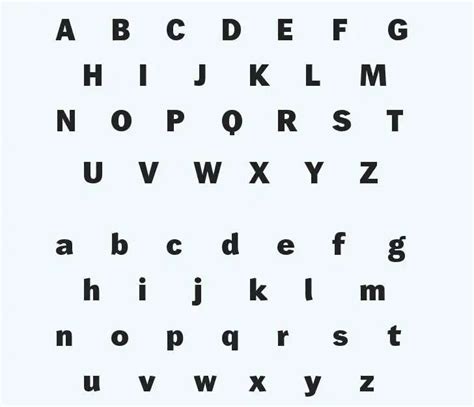
Unleash Your Inner Designer: White Fox Logo Font Generator Guide
Hey everyone! Ever wondered how to create a killer logo, especially when you’re on a budget or just starting out? Well, you’re in luck! Today, we’re diving deep into the world of the White Fox Logo Font Generator . This awesome tool helps you design fantastic logos, and it’s super user-friendly. Whether you’re a seasoned designer or a complete newbie, the White Fox generator can be your best friend. In this comprehensive guide, we’ll explore everything you need to know: what makes this generator special, how to use it effectively, some cool design tips, and even some alternative options. So, grab your coffee, get comfy, and let’s get started on your logo creation journey!
What Makes the White Fox Logo Font Generator Stand Out?
So, what’s the big deal about the White Fox Logo Font Generator ? Why should you choose it over the thousands of other logo design tools out there, right? Well, it boils down to a few key things that make it a winner. First off, it’s known for its simplicity. Seriously, the interface is incredibly intuitive. You don’t need to be a design guru to navigate it. Secondly, it offers a great selection of fonts. Fonts are the backbone of any logo, and the generator provides a range of styles that can match various aesthetics, from sleek and modern to playful and vintage. The White Fox Logo Font Generator often excels in providing a curated selection that hits the sweet spot for many users. The generator often includes options for customization. You can tweak the fonts, colors, and layouts to get the exact look you envision. This level of flexibility is crucial for making a logo truly unique. And let’s not forget the cost. Many generators offer free options or affordable premium plans, making professional-looking logos accessible to everyone. The White Fox version often aligns with this budget-friendly approach. Ultimately, the White Fox Logo Font Generator aims to empower you to create a professional logo without breaking the bank or needing extensive design experience. It’s the perfect tool for startups, small businesses, and anyone who wants to create a compelling brand identity.
The Power of Typography in Logo Design
Typography is a huge deal. It’s way more than just picking a font; it’s about choosing the right words to communicate your brand’s personality and values. The font you choose can instantly tell your audience what you’re all about. A sleek, minimalist font might say ‘modern’ and ‘sophisticated,’ while a bold, playful font could scream ‘fun’ and ‘approachable.’ And that’s exactly why the White Fox Logo Font Generator is useful: It provides a curated library, enabling you to explore fonts that fit your needs. The generator understands this, which is why it often features a variety of font styles to suit different brand identities. Choosing the right font is like picking the perfect outfit; it needs to fit the occasion and reflect who you are. The careful selection of fonts can convey your brand’s essence. Think about it: a logo with the wrong font can send the wrong message. Imagine a law firm using a comic sans font, it simply doesn’t convey trust or professionalism, right? Typography also affects readability. You want your logo to be clear and easy to understand at any size. The White Fox generator lets you adjust the font size, spacing, and other design elements to ensure your logo looks great on business cards, websites, and everything else. So, take your time, play with different fonts, and see how they change the overall feel of your logo.
Customization Options and Features
One of the best parts about using a White Fox Logo Font Generator is the ability to customize your logo. The best generators offer a bunch of options so you can fine-tune every detail. You’ll usually have the power to change colors. Color psychology plays a massive role in branding. Different colors evoke different emotions. Red might mean excitement, green could represent nature, and blue often symbolizes trust. A good generator will let you pick and choose colors, or let you create your own custom color palettes. Plus, you can change the text layout. Play around with the way your brand name and tagline are arranged. Experiment with different arrangements, such as stacked text, horizontal layouts, or circular designs. This is where you can truly make your logo stand out. The layout is just as important as the font itself. The White Fox Logo Font Generator often provides tools for adjusting the spacing between letters and words. Small adjustments here can make a big difference in the overall look and feel. Some generators even offer the option to add icons or graphics. If you want to include an image or symbol, many generators allow you to upload your own or choose from a library of pre-made elements. The goal is to make your logo unique to you and your brand. Don’t be afraid to experiment, try different combinations of fonts, colors, and layouts, and see what works best. Play around with all the features and tools the White Fox Logo Font Generator offers. The beauty of these generators is that you can try things out and change them until you’re happy with the result. Take advantage of all the available options to create a logo that perfectly represents your brand.
How to Use the White Fox Logo Font Generator Effectively
Alright, let’s get down to the nitty-gritty and learn how to use the White Fox Logo Font Generator like a pro. Using a font generator can seem intimidating at first, but trust me, it’s easier than you think. First, head over to the generator’s website. You’ll usually find a user-friendly interface. Next, start by typing in your brand name and any relevant tagline. Most generators will give you a preview of your logo as you make changes. Then, comes the fun part: Choosing your font! The White Fox Logo Font Generator usually has a range of fonts to choose from. Browse the options and pick one that aligns with your brand’s personality. The font you choose should reflect your brand’s overall image. From there, you get to customize your design. Use the options to change the color of your text and background. Experiment with different colors to see what looks best. Many White Fox Logo Font Generators provide a variety of layouts. Try different arrangements to find a design that suits your brand. Finally, review your design, and make any final adjustments. Make sure you’re happy with the logo before saving or downloading it. Some generators offer options to download your logo in different file formats. Choose the format that best suits your needs, such as a PNG for web use or a vector file for printing. With a little bit of time and effort, you can create a professional-looking logo that represents your brand. The key is to play around with the generator’s features, and don’t be afraid to try different things until you find the perfect design. And that is how easy it is to become a pro!
Let’s walk through the process of creating your logo, step by step, using the White Fox Logo Font Generator . First, access the generator. Find the platform and open it up. Next, it’s time to enter your brand name and any tagline. Most generators will display your text in real time. After you’ve entered your brand name, take a look at the font selection. Browse the available options and select a font that reflects the personality and tone of your brand. Now, get ready to personalize your logo. Start by playing with the color of your text. Try out different color combinations. The White Fox Logo Font Generator probably has several layout options. Experiment with different arrangements to see what fits best. Some generators also offer customization options for adding icons or other graphic elements. Don’t worry about getting it perfect on the first try. That’s why it’s called experimenting. Once you have a logo design you like, take a moment to review it. Is everything aligned and arranged the way you want it? Does the color look good? Do the font and layout represent your brand? If everything looks good, go ahead and save and/or download your logo. The White Fox Logo Font Generator likely offers options to download your logo in various formats. With a bit of practice and patience, you’ll be able to create a logo that looks professional and fits your brand. You’ll get the hang of it pretty quickly, so have fun with it.
Tips for Maximizing the Generator’s Potential
To make the most of the White Fox Logo Font Generator , there are a few handy tips to keep in mind. First of all, do your homework, and research the competition. Look at logos from similar businesses or brands in your industry. This will help you get an idea of what works well, and what doesn’t. Next, keep it simple. It might be tempting to add many elements to your logo, but simplicity is often best. A clean, uncluttered design is usually more memorable and effective. Start with a basic concept, and build from there. When picking your font, consider your brand’s personality. Is your brand playful and fun, or serious and professional? Let your brand’s tone guide your choice. The White Fox Logo Font Generator often offers a lot of color choices, but don’t go overboard. Choose a color palette that suits your brand, and stick to it. Most brands only use a few colors. Remember to get feedback. Ask friends, family, or potential customers for their opinions on your logo. If you can, get a second opinion on your designs, before you finalize your logo. And finally, be patient and experiment. There’s no rush to create your logo, and don’t be afraid to try different ideas. Play around with different fonts, colors, and layouts until you find a design that you love. Remember, creating a logo is a process. Have fun, and enjoy it! Your logo is an essential part of your brand identity, and the White Fox Logo Font Generator can help you bring your vision to life.
Creating a stunning logo is about more than just picking a font and calling it a day. It’s about combining creativity, strategy, and some design principles that will make your logo memorable and effective. The White Fox Logo Font Generator is a great starting point, but knowing these tips can elevate your design to the next level. First, consider the message you want to convey. What is your brand all about? What values do you want to communicate? Think about how your logo will reflect your brand’s personality. Use a font that matches your brand’s tone. A sleek, modern font works well for tech companies. A classic serif font is better for something like a law firm. Choose colors wisely. Colors have a significant psychological impact, so pick colors that support your brand’s message. Don’t be afraid to break the rules, and be unique. Try to make your logo stand out. Try to keep your logo simple. A logo that’s too complex can be difficult to remember. Go for simplicity, and choose one or two key elements. Keep your logo versatile. Design a logo that looks good in both small and large formats. Make sure it looks good in both color and black and white. Finally, don’t be afraid to get feedback. Ask friends, family, or potential customers for their thoughts on your logo. Listen to their feedback, and be open to making changes. The more time you put in, the better the final product. The White Fox Logo Font Generator is a fantastic tool, but it’s your creative vision that makes your logo truly shine. By combining these design tips with the generator’s features, you can create a logo that’s both visually appealing and effective.
Color psychology plays a big part in creating a good logo. Different colors trigger different emotions and associations. The colors you choose should reflect your brand’s personality and values. White Fox Logo Font Generators will often give you a lot of color options. Red is often associated with excitement, passion, and energy. It’s a great choice for brands that want to convey a sense of urgency or excitement. Blue is often associated with trust, security, and professionalism. It’s a good choice for financial institutions. Green often represents nature, health, and growth. It’s perfect for companies in the environmental or wellness industries. Yellow is associated with optimism, happiness, and friendliness. It’s a good choice for brands that want to convey a sense of fun or approachability. Black represents sophistication, power, and elegance. It’s a great choice for luxury brands. White is often associated with purity, cleanliness, and simplicity. It works well for minimalist brands. Keep in mind that color psychology can vary, so consider your target audience and the cultural context. Think about what emotions you want your audience to feel when they see your logo. Use colors strategically, and make sure they align with your brand’s message. The White Fox Logo Font Generator provides the tools you need to experiment with different color combinations. By understanding color psychology and using it to your advantage, you can create a logo that resonates with your audience and effectively communicates your brand’s essence.
Conclusion: Your Logo Design Journey Starts Here!
Alright, guys, you’ve made it to the end of our guide. We’ve covered everything from the basics of logo design to how to use the White Fox Logo Font Generator and its alternatives. Now it’s time to put what you’ve learned into practice! Remember, designing a logo is an exciting journey. It’s a creative process. Don’t be afraid to try new things and experiment. Use the White Fox Logo Font Generator as a starting point. Play around with different fonts, colors, and layouts. Consider exploring other design tools and services. Take your time, and enjoy the process. Good luck, and have fun creating your logo!